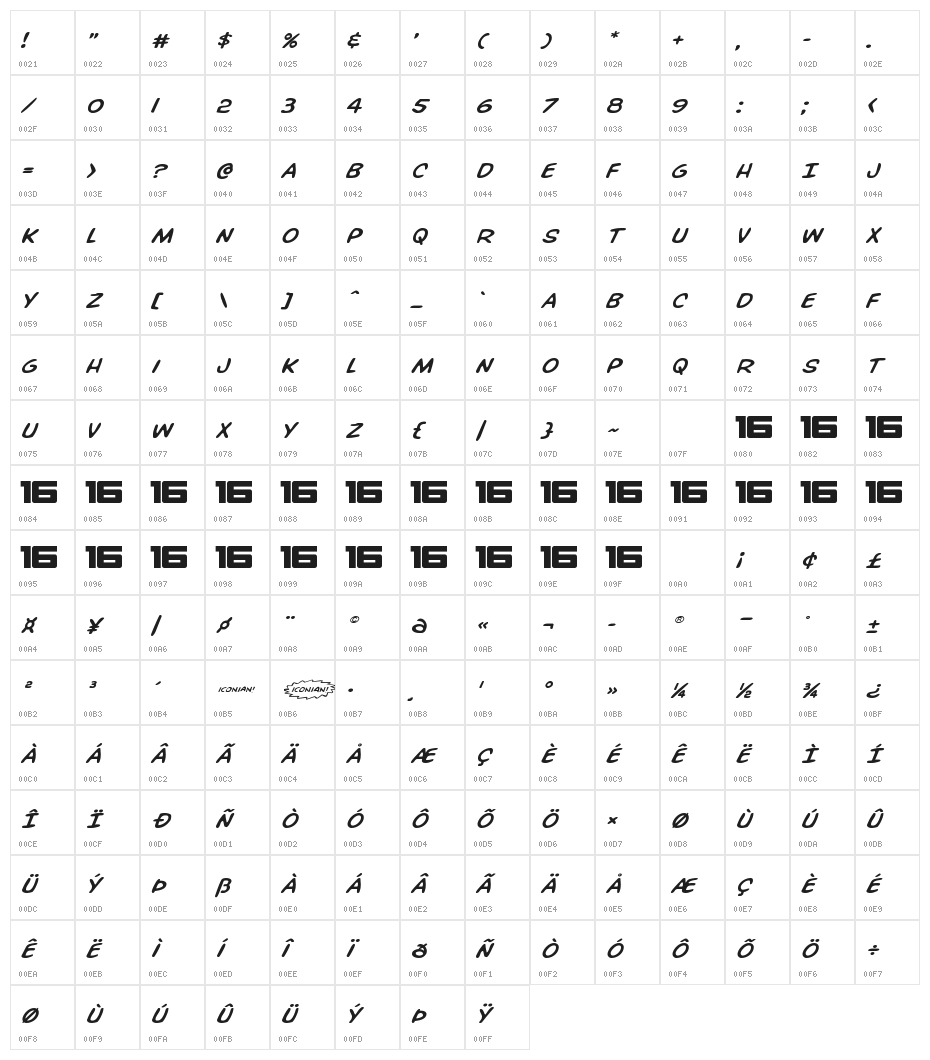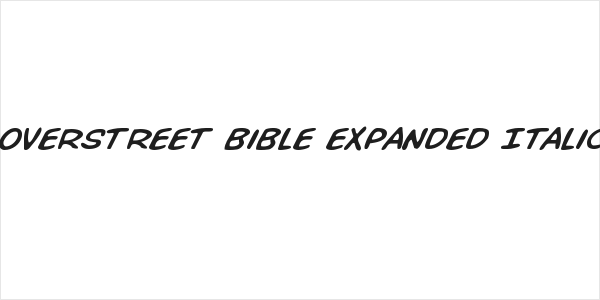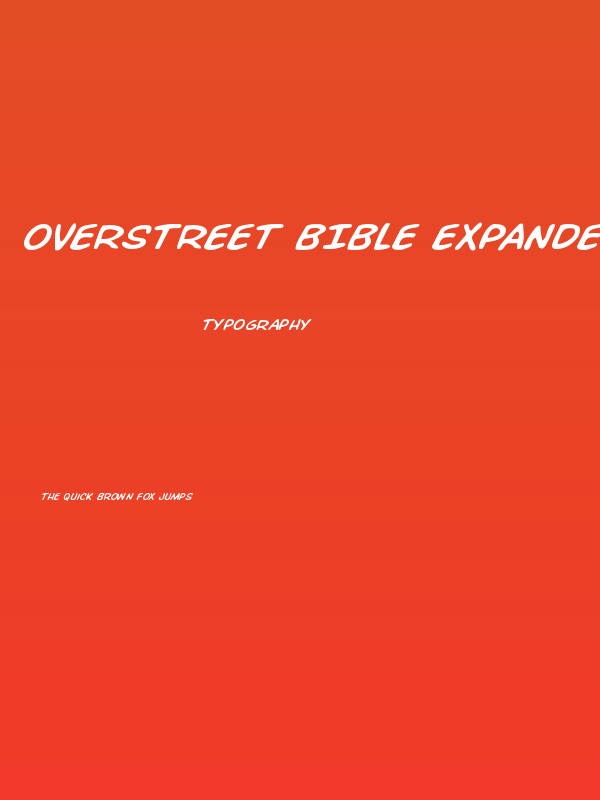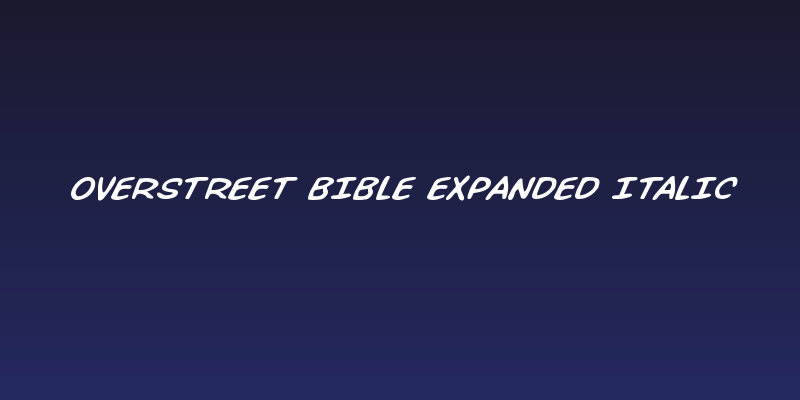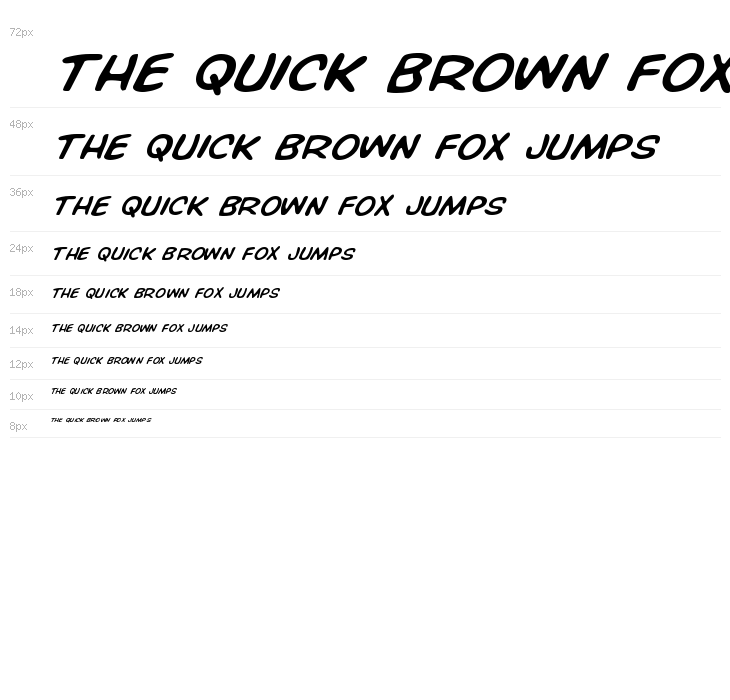
Overstreet Bible Expanded Italic Font
Overstreet Bible Expanded Italic Description
This font features a dynamic and energetic style with a distinctly italicized form. The characters are bold and expanded, giving them a strong presence on the page. The strokes are smooth and rounded, contributing to a friendly and approachable appearance. The uppercase and lowercase letters maintain a consistent flow, enhancing readability while adding a touch of flair. The numerals and special characters are equally well-crafted, ensuring versatility across various applications. This font's design is ideal for projects that require a lively and engaging typeface.